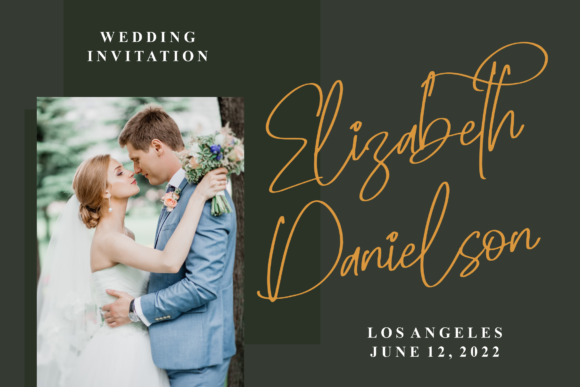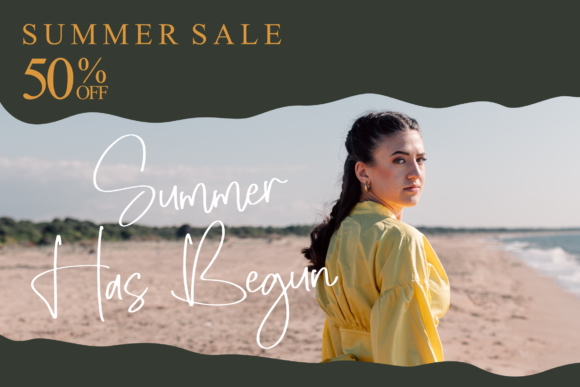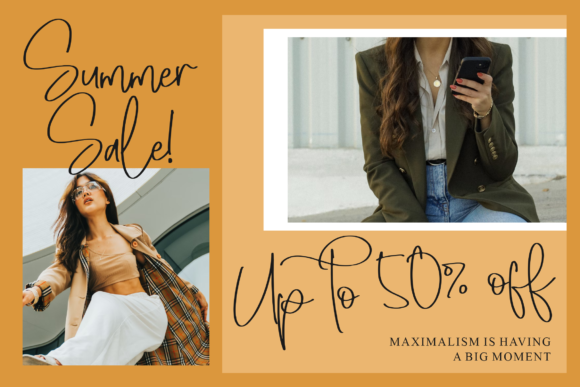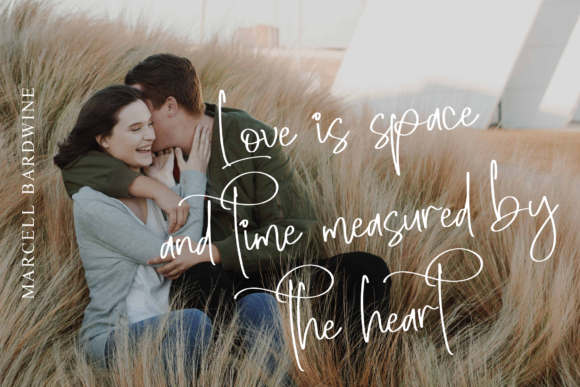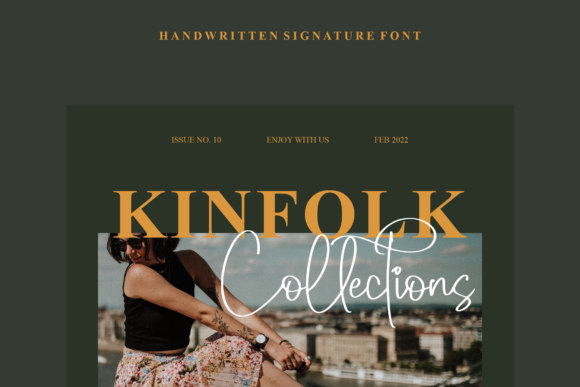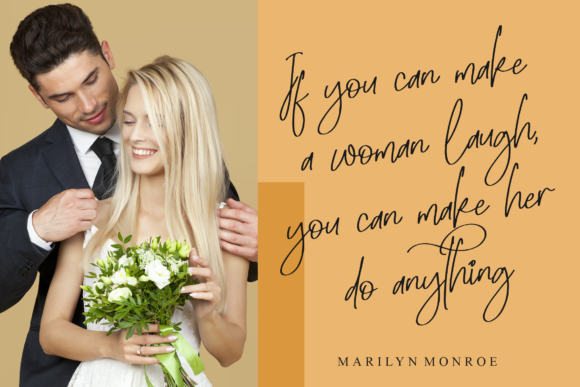
Introduction to Montterule Font
Montterule is a quirky handwritten font.
Made by handwriting instantly brings out the natural characteristics of your project This font is perfect for websites, svg designs, home decor, branding, blogs, logos, invitations, and more.